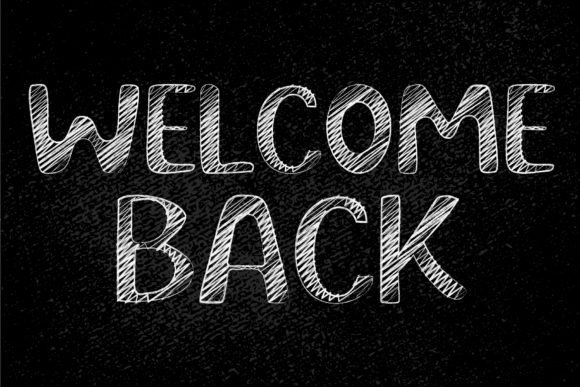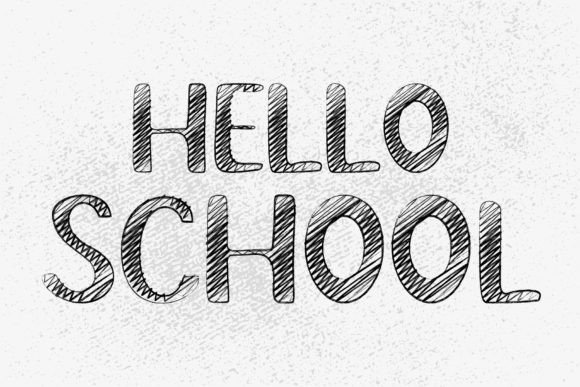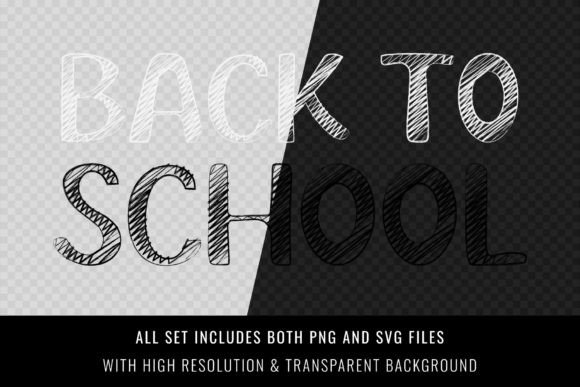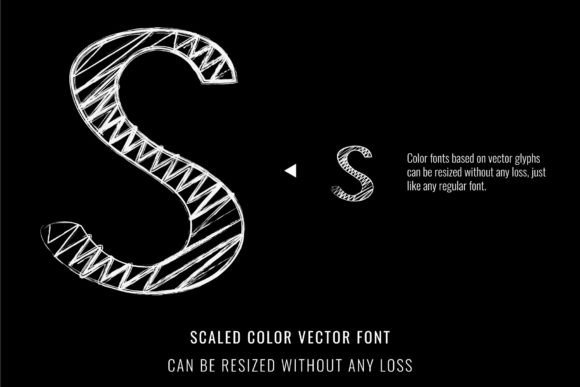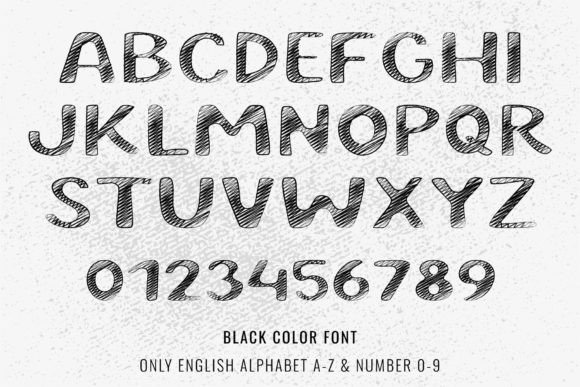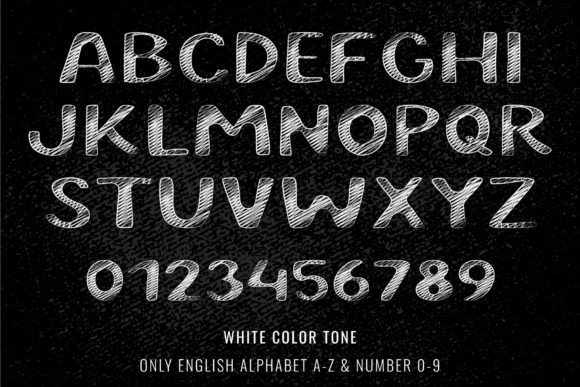
The Ultimate Back to School Font: A Designer’s New Best Friend
Ah, the back to school season is upon us! As designers, we’re often tasked with creating projects that scream “I’m back to school!” without actually saying it. I recall a particularly frustrating design session where I was working on a school-themed t-shirt design, but my font choices just weren’t cutting it. The client wanted something that captured the essence of chalkboard writing, but I was coming up blank. That’s when I stumbled upon the “Back to School Chalkboard Font”.
This fantastic font has been a game-changer for me, and I’m excited to share it with you! The “Back to School Chalkboard Font” is a great sketch font that’s perfect for chalk writing and school-themed projects. Its casual, laid-back vibe makes it ideal for creating cool designs that grab attention.
What I Love About the Back to School Chalkboard Font
Here’s what makes this font a standout:
- ✨ Unique Chalkboard Style: The font’s chalkboard-inspired design gives it a distinctive, hand-sketched feel that’s perfect for school-themed projects.
- ✅ Highly Versatile: Use it for t-shirts, book designs, restaurant menus, blog writing, greeting cards, stickers, and more!
- 💡 Attention-Grabbing: The font’s bold, playful style is sure to make your designs pop.
- 👍 Easy to Read: Despite its casual vibe, the font remains highly legible, even at smaller sizes.
While the Back to School Chalkboard Font is amazing, there are a few things to keep in mind:
- 🤔 Limited Formality: This font is best suited for casual, creative projects. It may not be the best choice for more formal or professional designs.
- ⚠️ Glyph Limitations: As with any font, there may be limitations to the available glyphs or special characters. Be sure to review the font’s capabilities before committing to a project.
The Back to School Chalkboard Font was inspired by the nostalgic feel of traditional chalkboard writing. Imagine a teacher, scribbling notes on a chalkboard with a piece of white chalk, creating an imperfect yet charming piece of art. This font captures that essence, bringing a touch of playfulness and whimsy to your designs.
| Font Name | Back to School Font |
| Author | Font Craft Studio |
| What type of projects is the Back to School Chalkboard Font best suited for? | The font is ideal for school-themed projects, t-shirts, book designs, restaurant menus, blog writing, greeting cards, stickers, and more! |